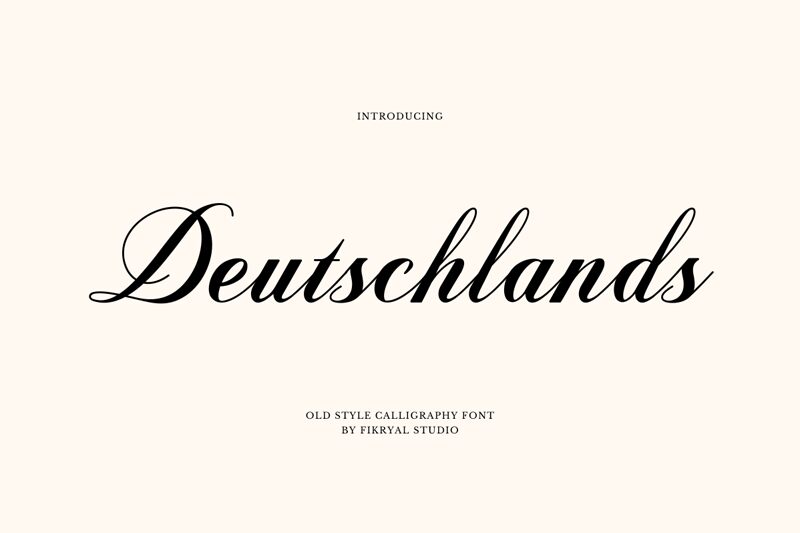
Deutschlands is a captivating calligraphic font that exudes elegance and sophistication. Crafted by the renowned Fikryal studio, this font showcases a harmonious blend of traditional flourishes and modern flair. The sweeping, expressive strokes and intricate ligatures create a sense of artistry and movement, making it an exceptional choice for high-end branding, editorial design, and luxurious packaging.
The expansive, fluid letterforms lend a sense of grandeur and prestige, making Deutschlands well-suited for titles, headers, and accent elements. Its versatility extends to various design applications, from formal invitations and event collateral to book covers and magazine layouts. The font's calligraphic essence evokes a timeless, refined aesthetic, allowing designers to imbue their work with a touch of timeless sophistication.